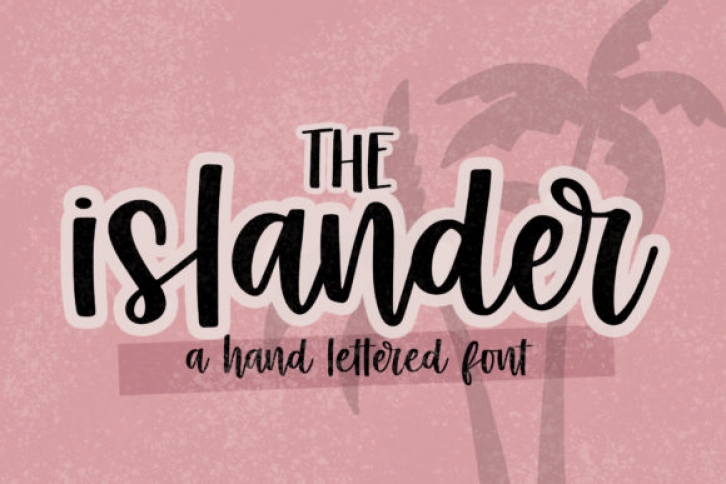
The Islander is a cool and fashionable handwritten font. It is defined by smooth curves and is perfect for fashion branding or editorial designs. Add it confidently to your projects, and you will love the results.